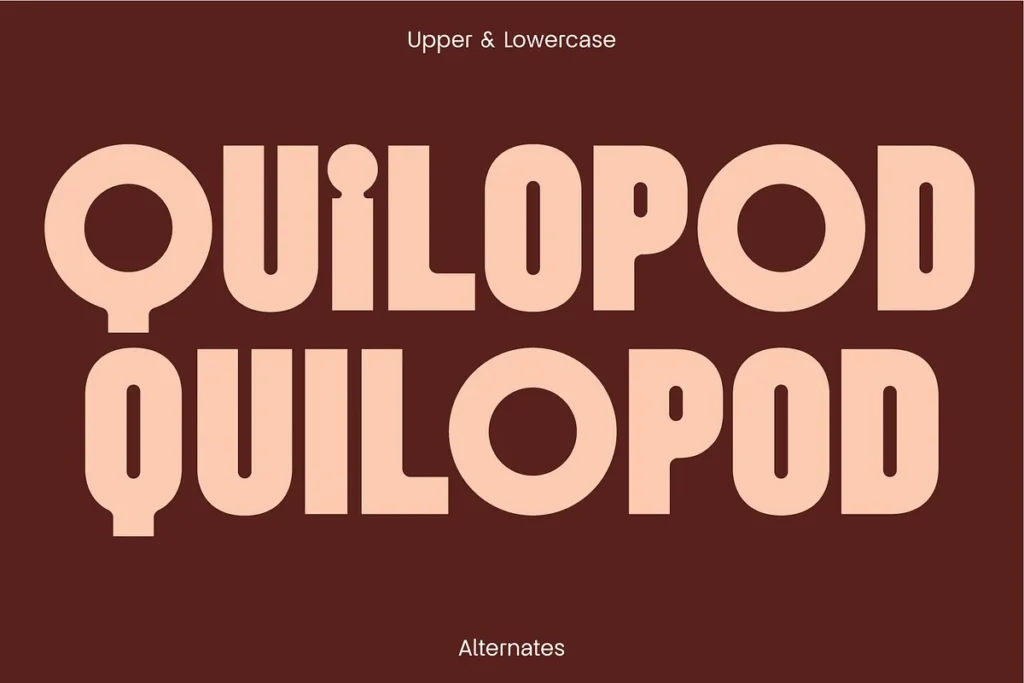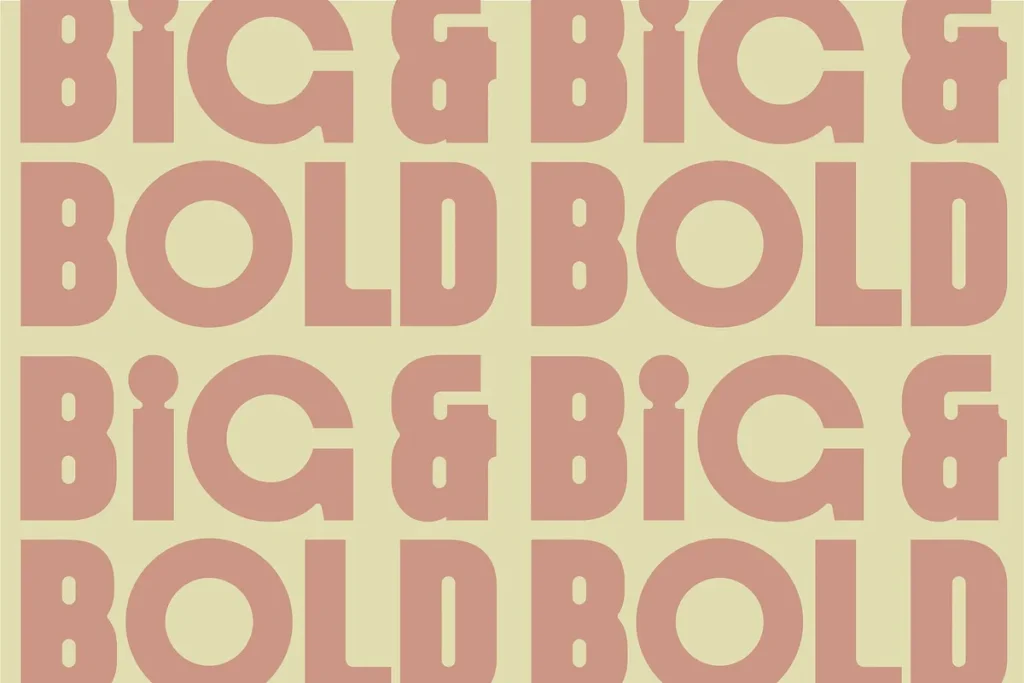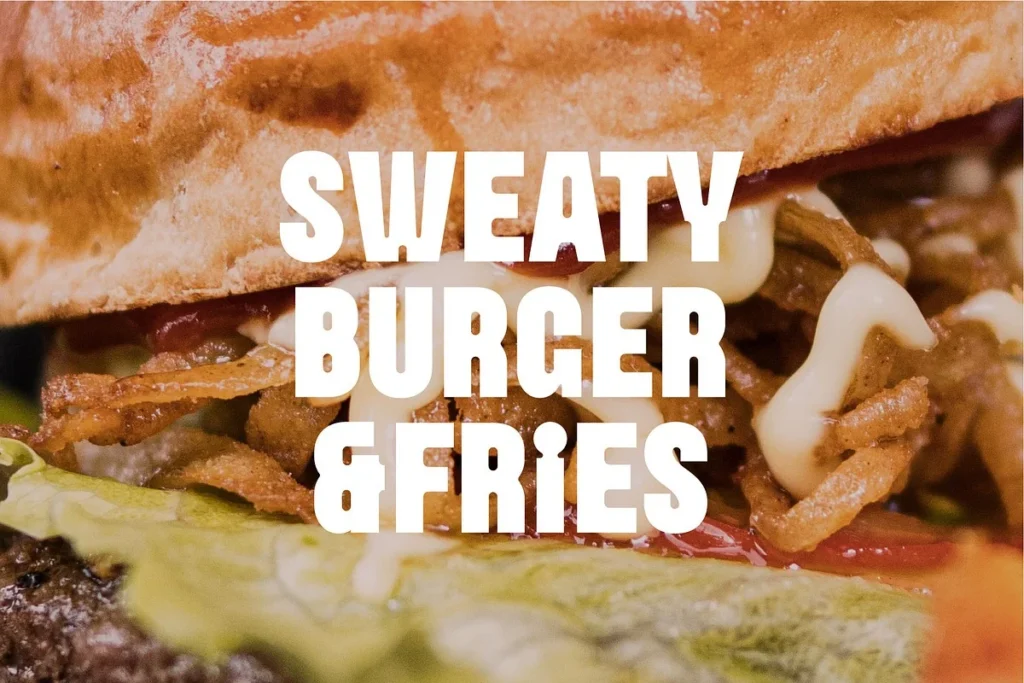
Quipo: Quirky Bold Display Font is quirky curved and bold display font Perfect for designs that require impact with a contemporary edge. Use it for a logo, a magazine masthead or as part of an email marketing campaign – it’s up to you!
Needs such as editorial design, branding, graphic design, signage, logos, apps, websites, eBooks, print media such as flyers, brochures, magazines, and all kinds of purposes that are suitable for this font.